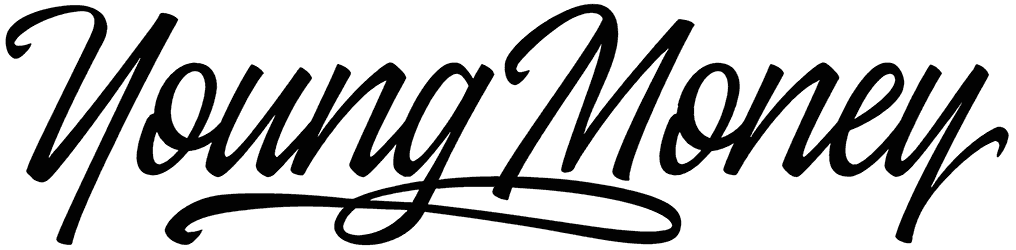
Young Money Font
When you have so many followers and need to impress different tastes, using a classic handwritten font would be a smart decision. The Young Money font is one of your available options that can give a captivating mood to your words. This signature font doesn’t have numbers, yet it can be added to your project and make it more charming.
Example: Wild_Use multiple underscores to make longer swashes.
Example: Bonfires_____Use # after any letter to make a swash version.